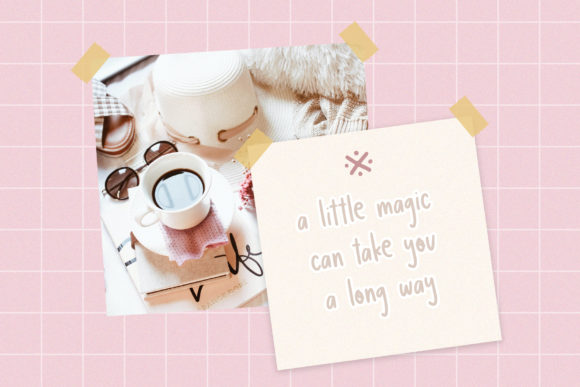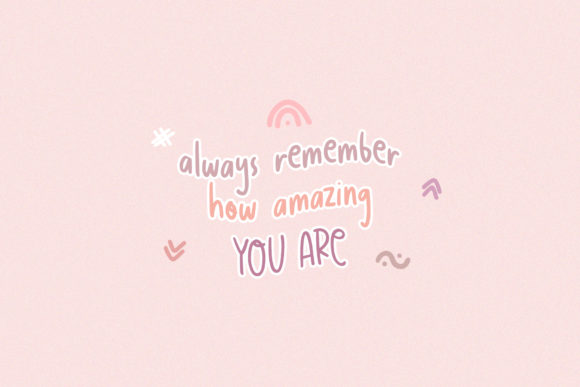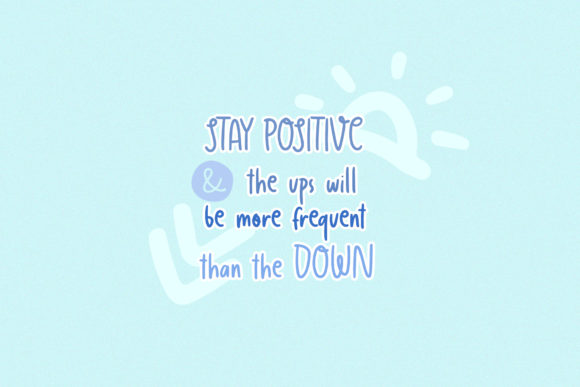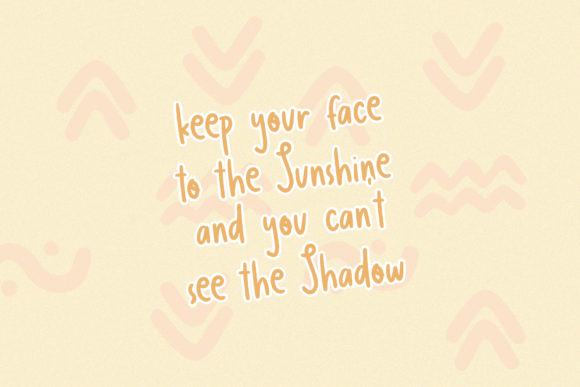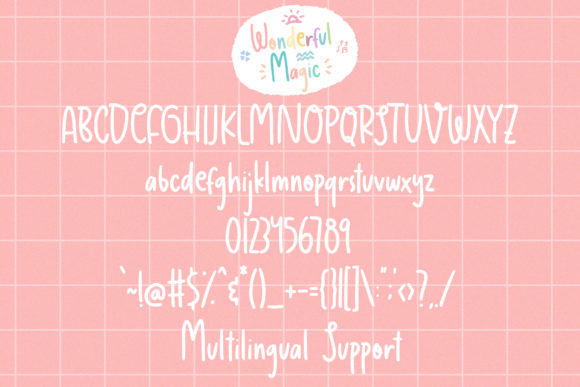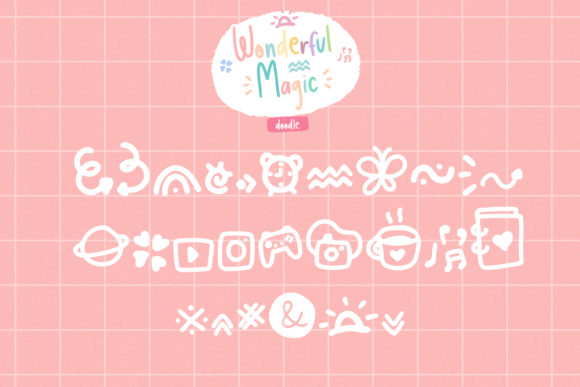
Wonderful Magic Font
About Wonderful Magic Font
Wonderful Magic feels cute, chic and simple, combining the letters with a doodles font, creating gorgeous designs!
Feel the sweet and joyful touch with the Wonderful Magic font!